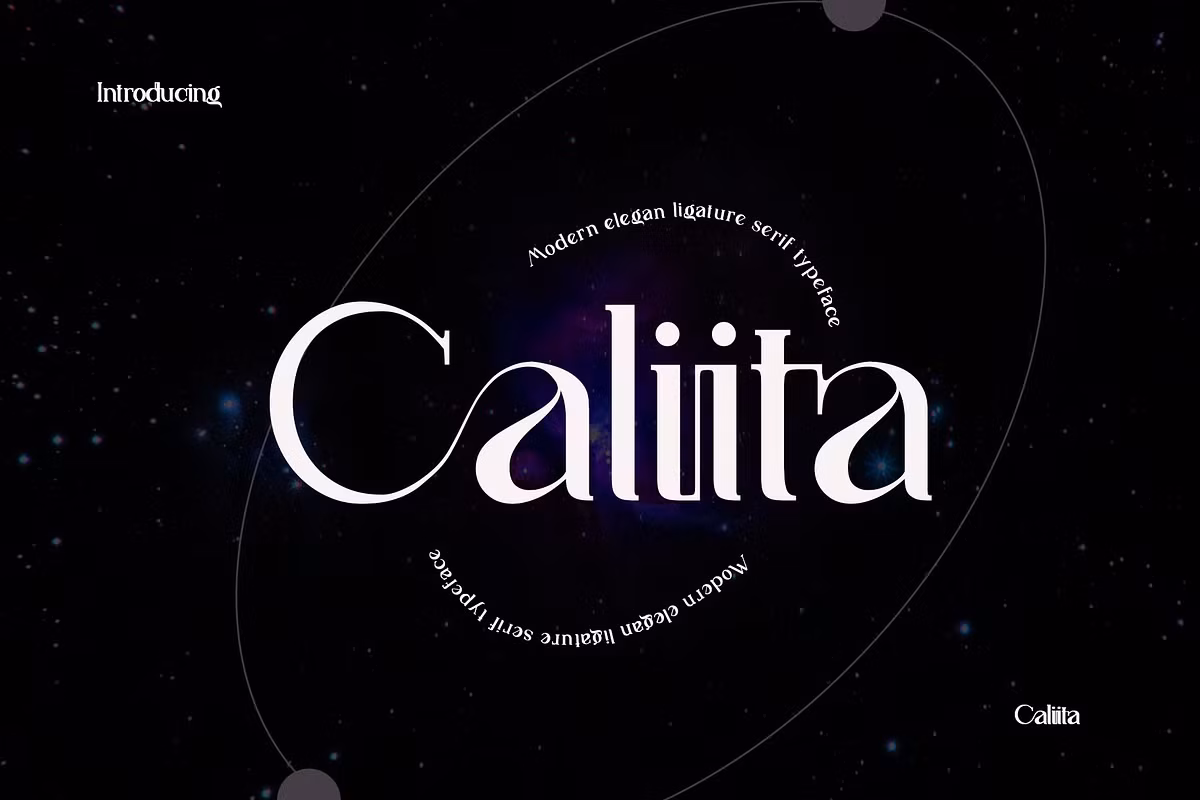
Caliita Ligature Serif Typeface Free Download is an elegant and refined serif font designed with artistic ligatures and high contrast. Its sophisticated, timeless design makes it perfect for luxury branding, editorial layouts, book covers, wedding invitations, and any design that requires a touch of class and style. The ligatures add a distinctive flair, making the typeface stand out with a creative edge while remaining highly legible.
The versatile and stylish appearance of Caliita ensures it works well across both display and text use, providing a seamless balance between beauty and functionality.